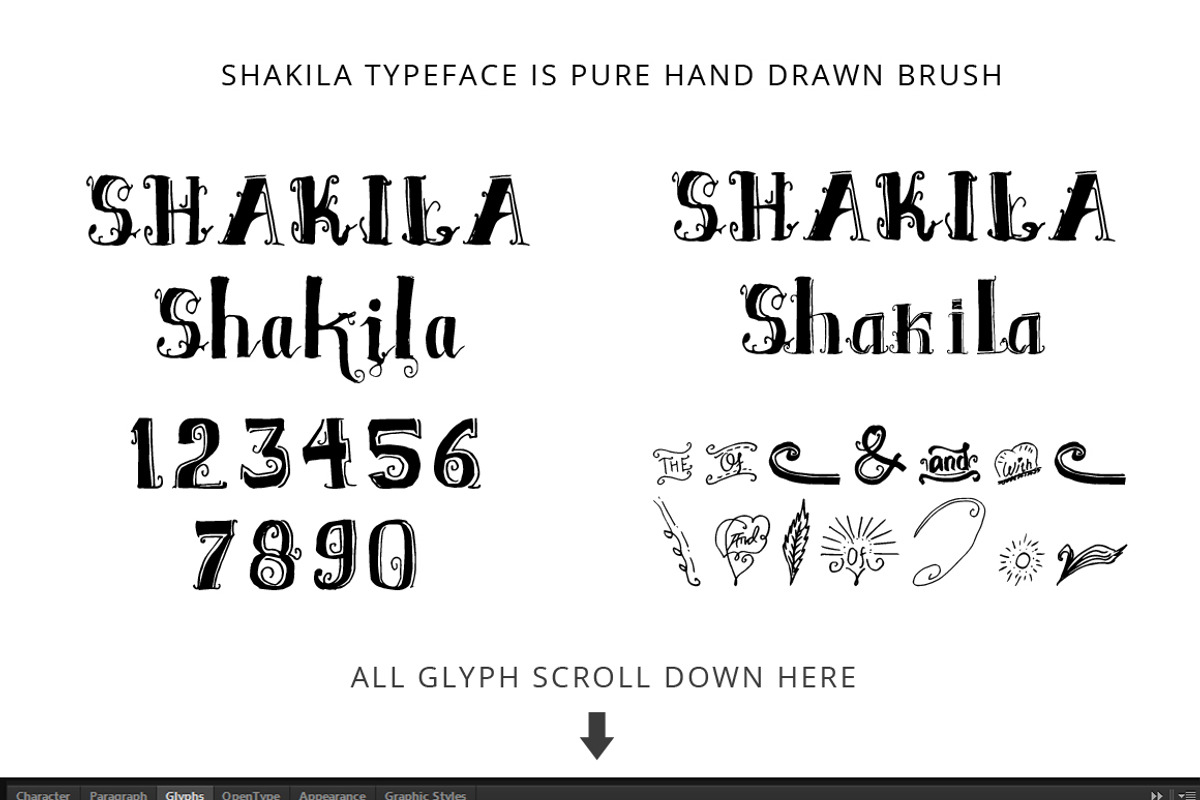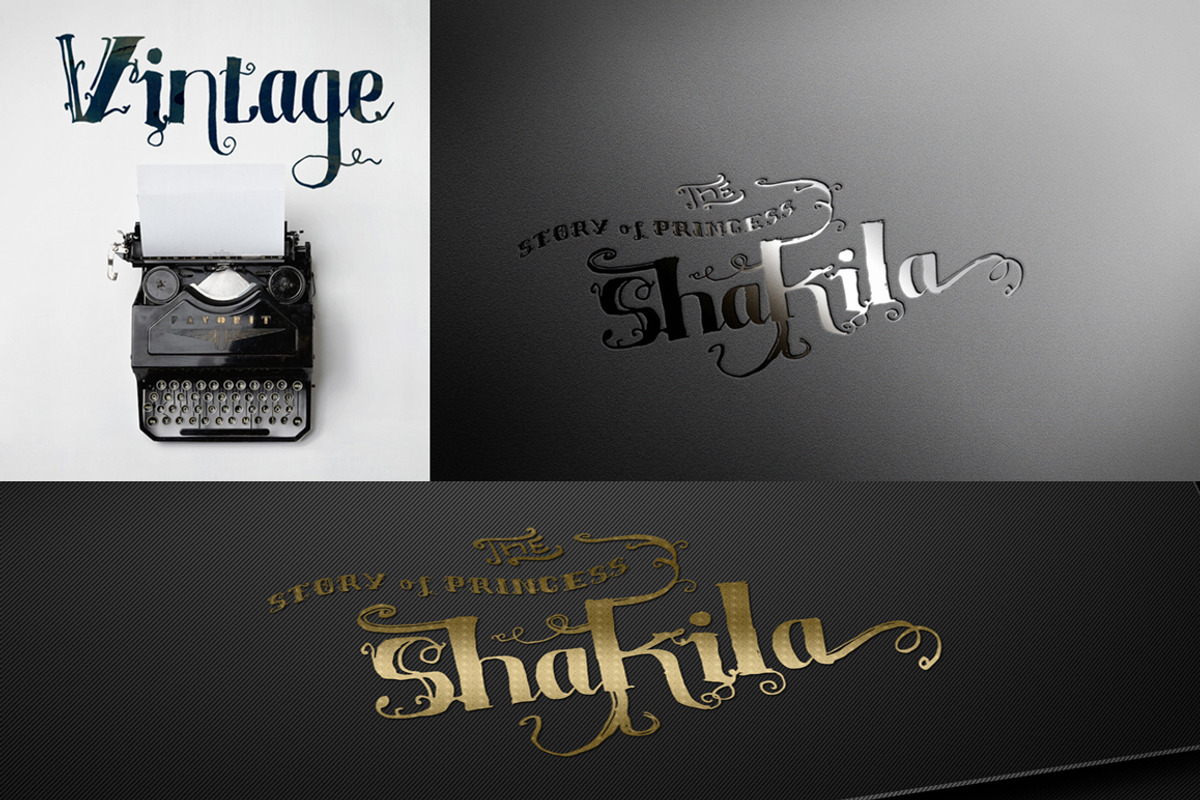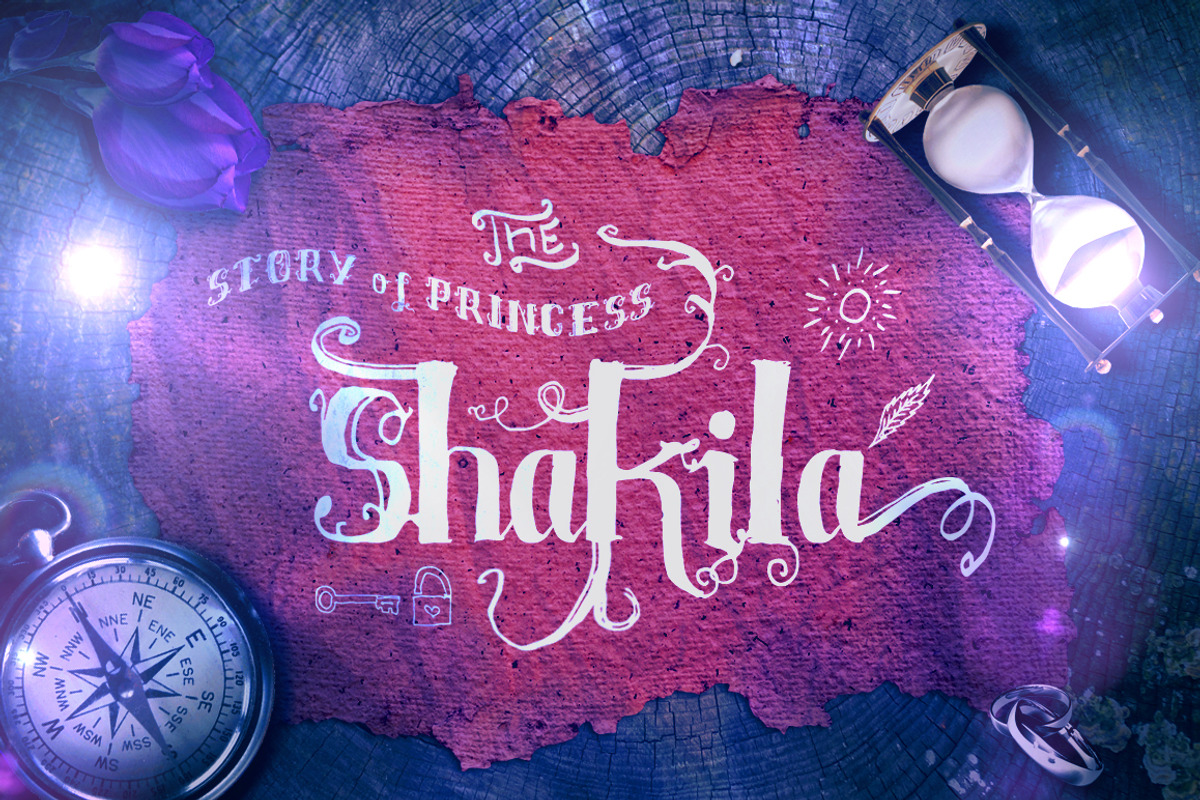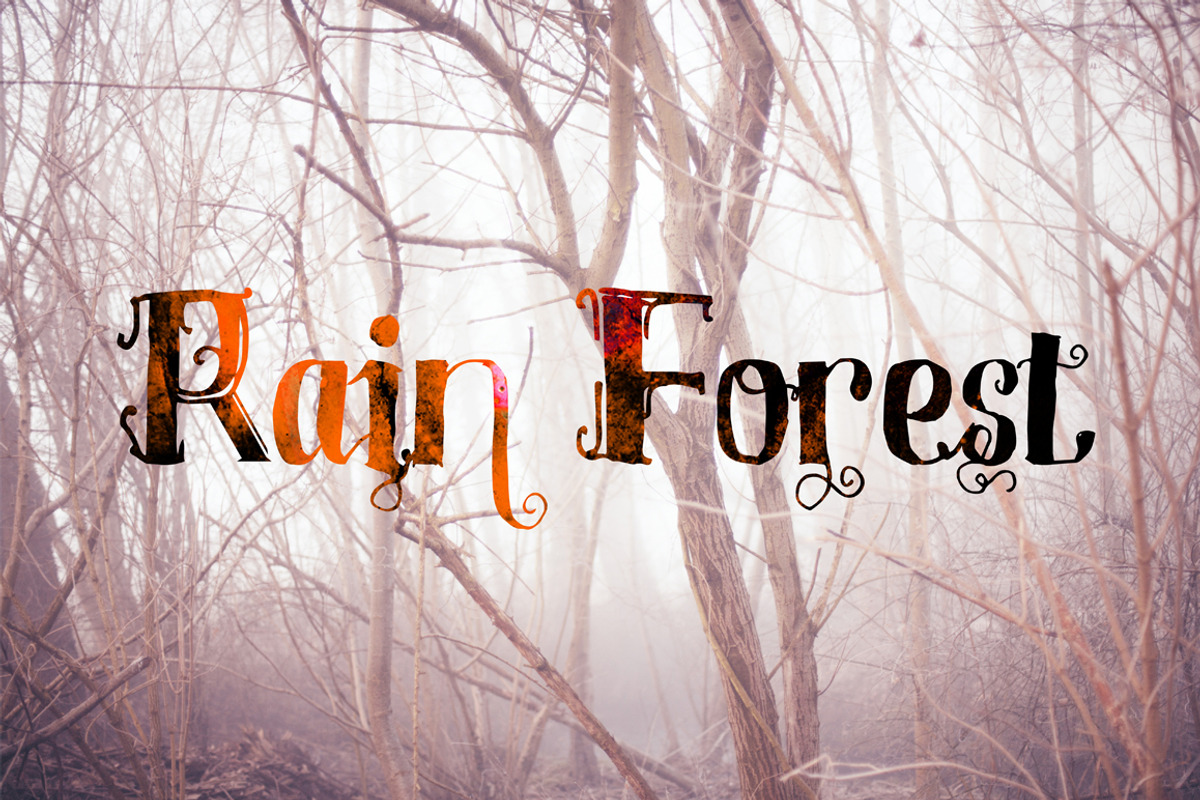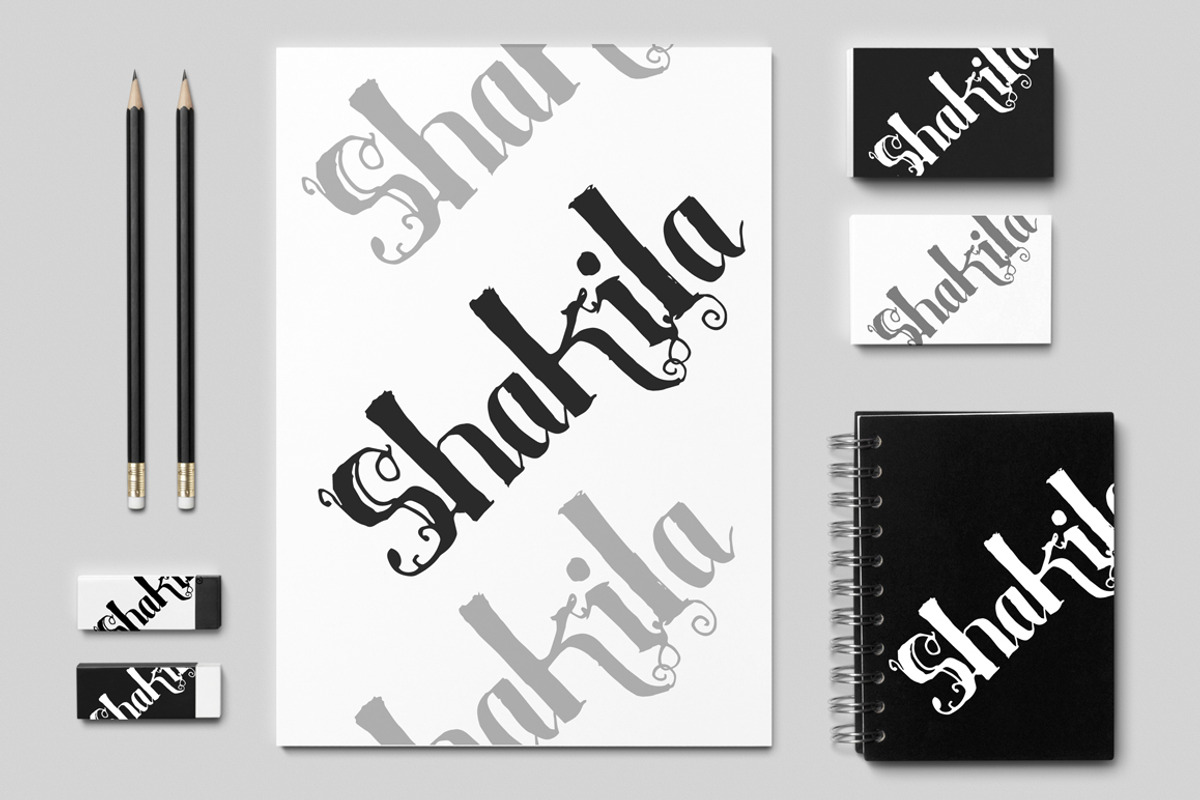
Shakila Typeface Hand Drawn Ornament
Shakila Typeface Hand Drawn Ornament by FHFont is a font selected for branding, posters, packaging, typography.
Why Shakila Typeface Hand Drawn Ornament is worth a look
Shakila Typeface Hand Drawn Ornament by FHFont fits naturally into Branding, posters, packaging, typography.